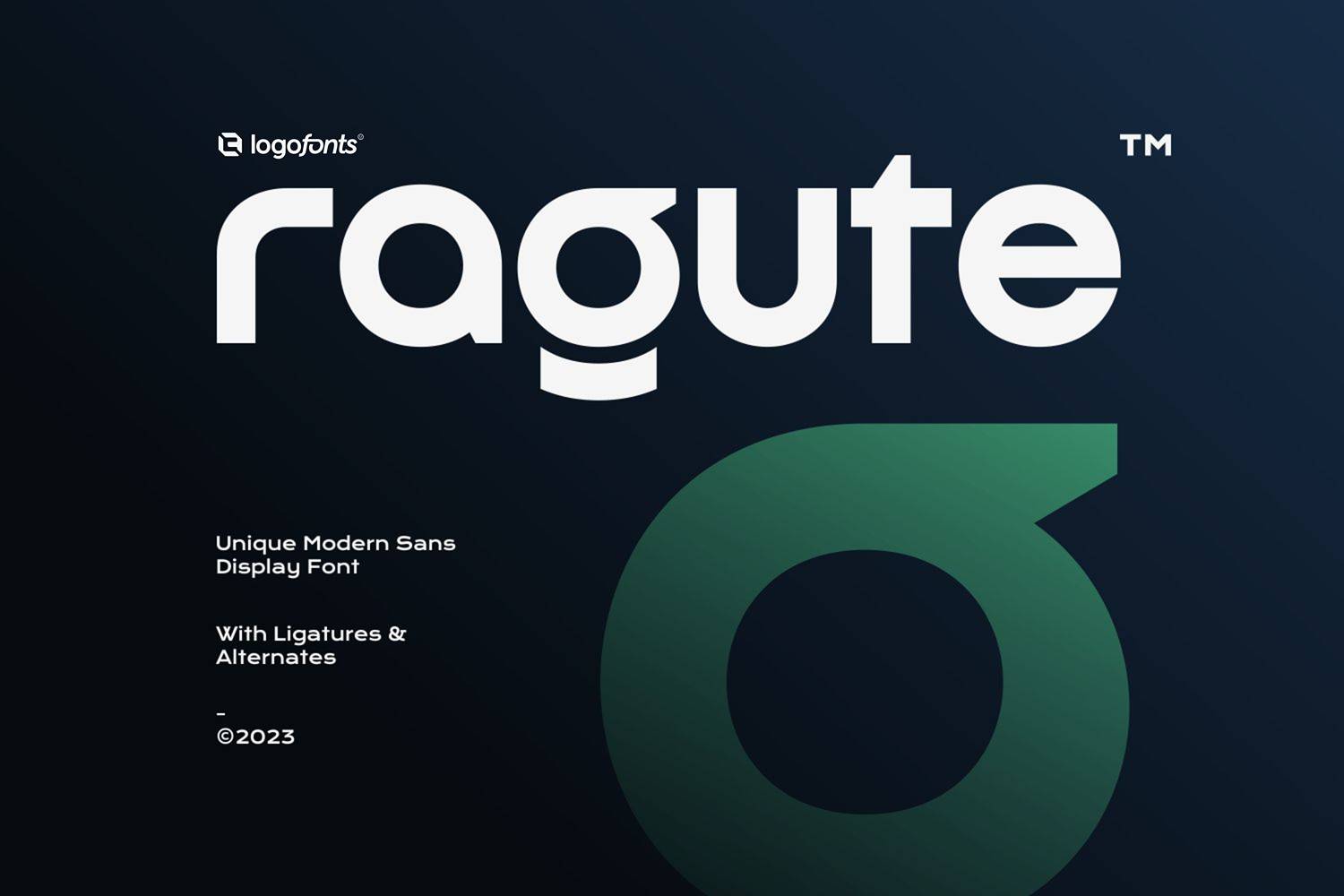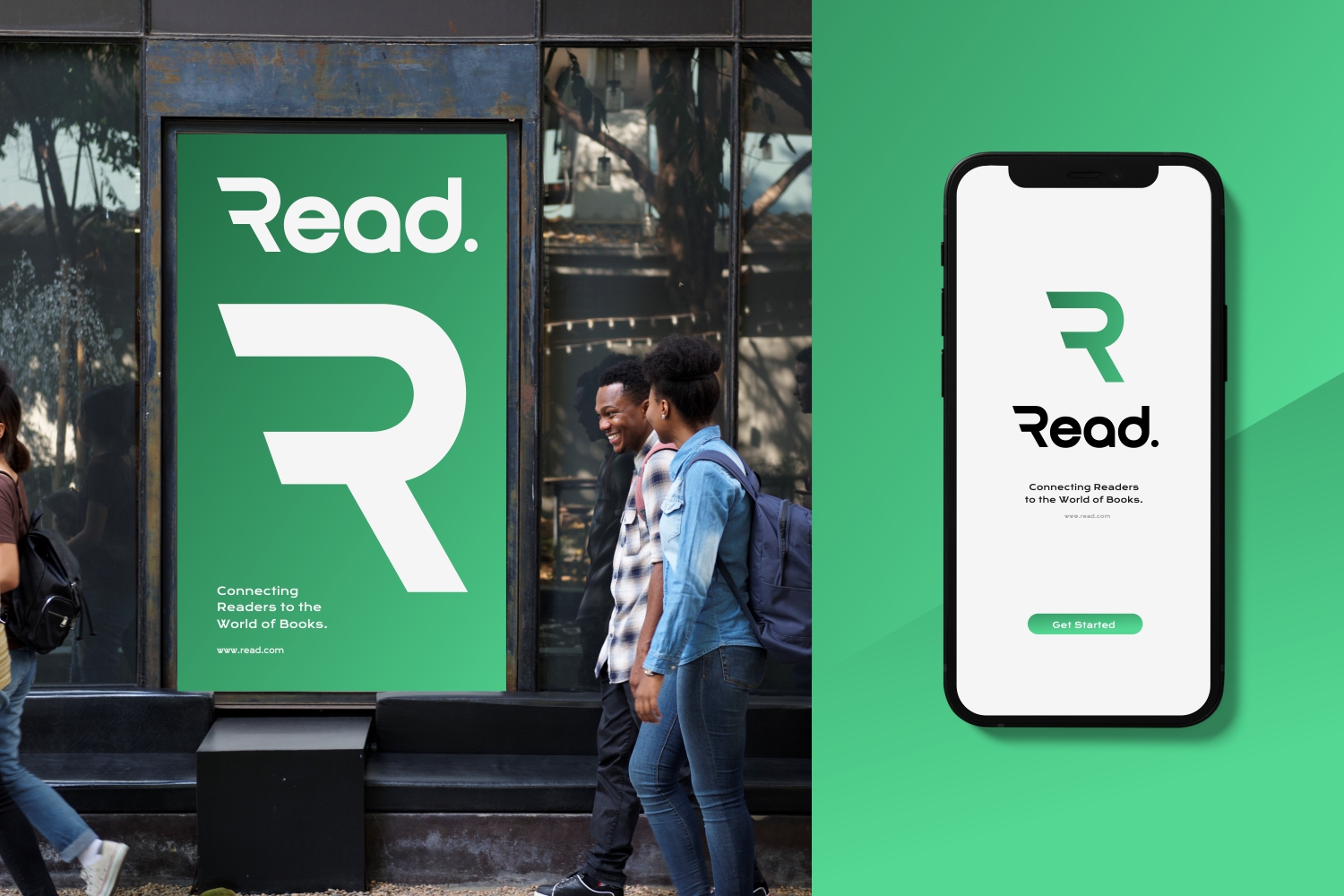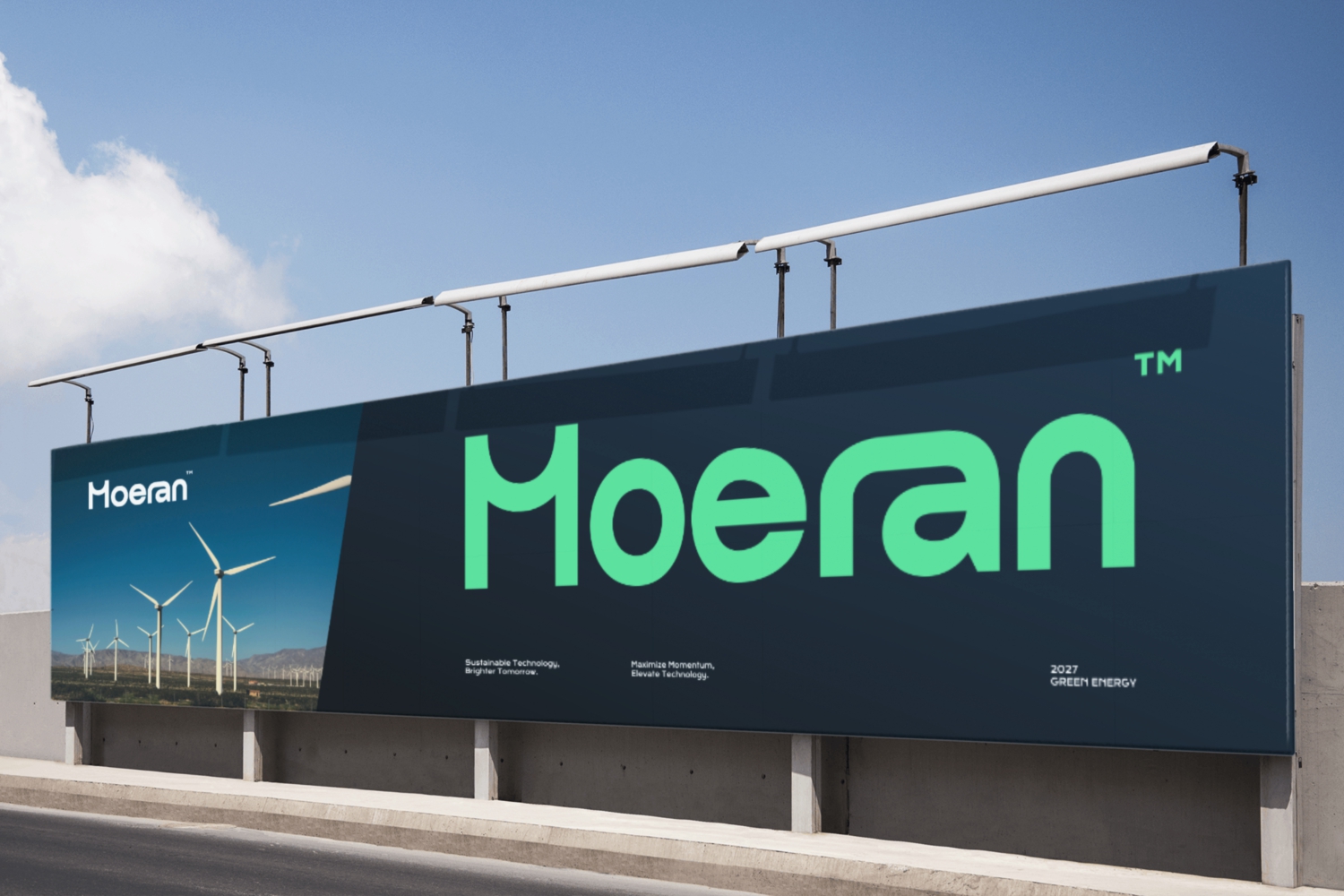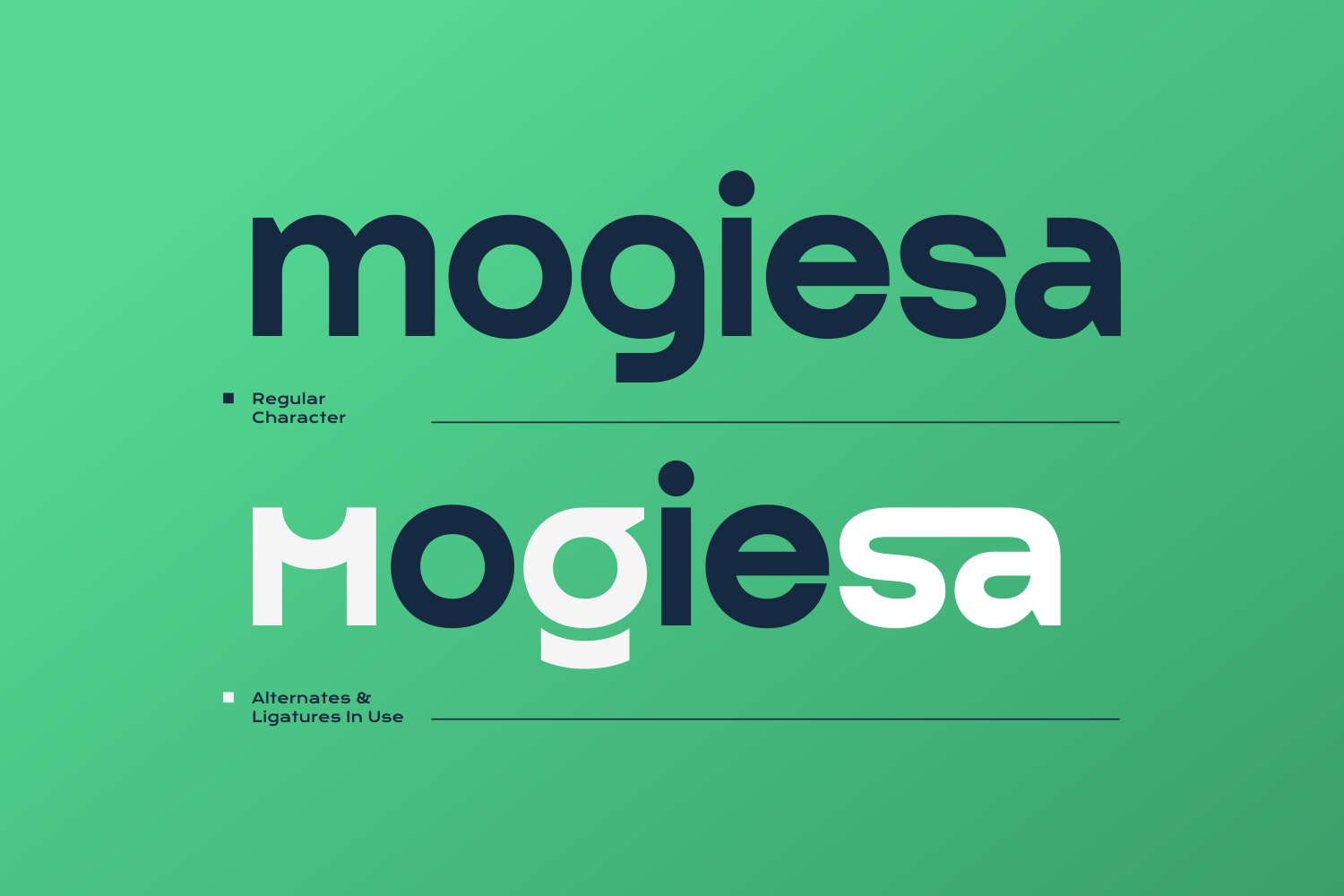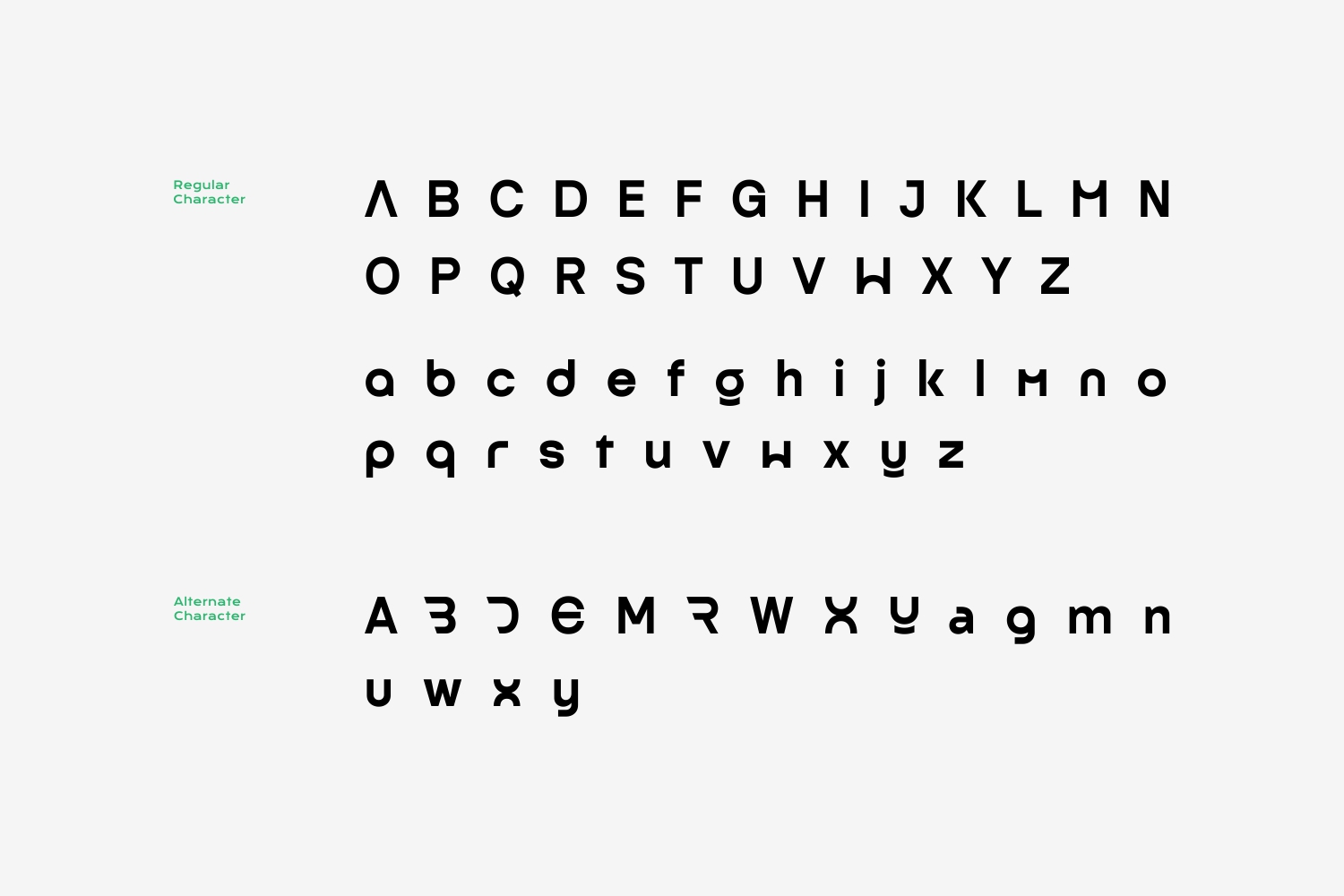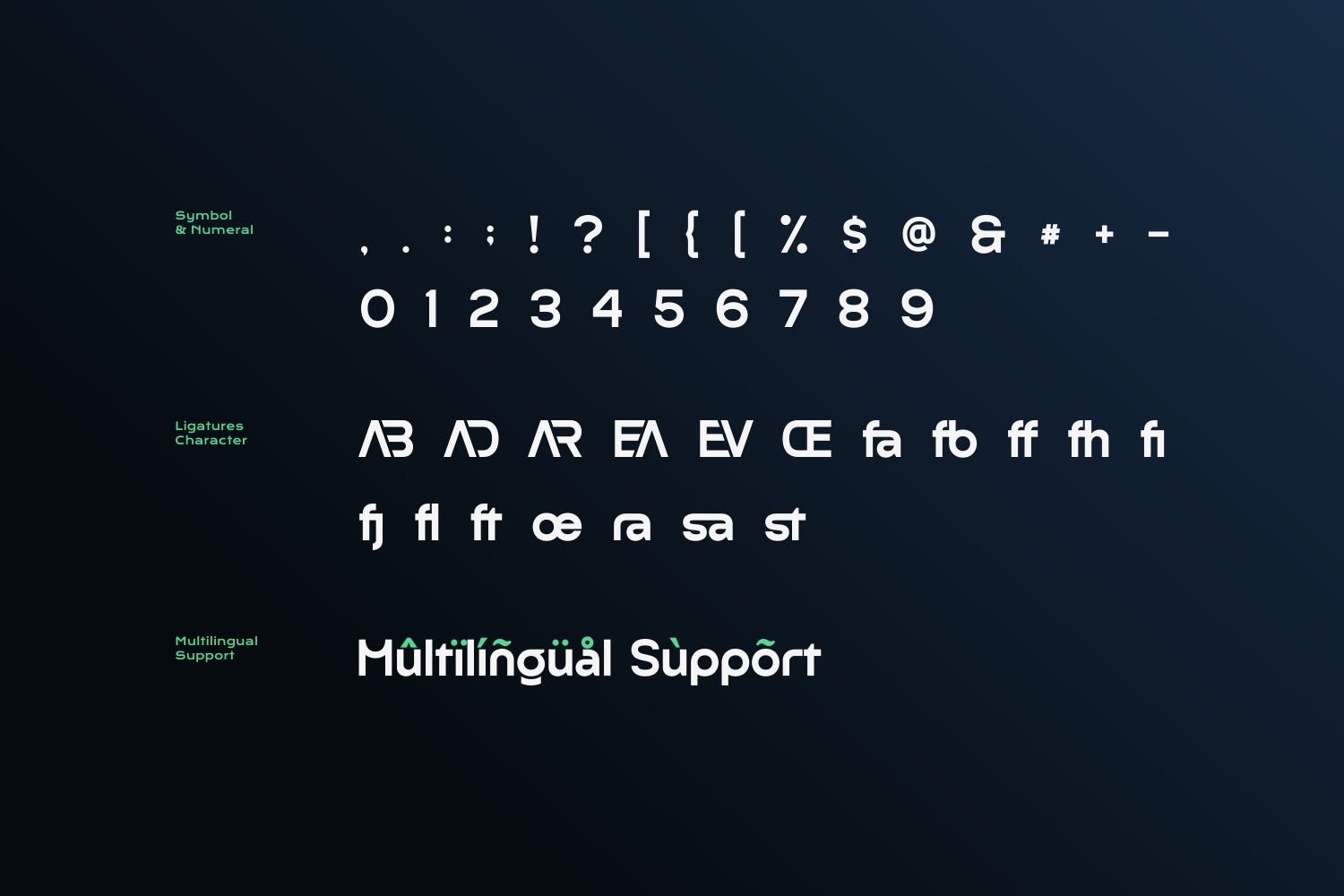
Ragute
Ragute is a modern sans serif display font with a clean yet inventive design approach. It features soft geometric curves blended with distinct character forms, making it ideal for branding, logo design, and tech-forward user interfaces. The font maintains high readability while offering a unique personality, thanks to its set of alternates and ligatures that allow for playful or professional customization depending on the need.
Whether used in bold headlines or minimalist layouts, Ragute brings a balanced blend of functionality and character. The font supports multiple languages and includes well-crafted symbols, making it versatile for digital products, eco-tech branding, creative apps, and startups that aim for a futuristic and accessible identity.